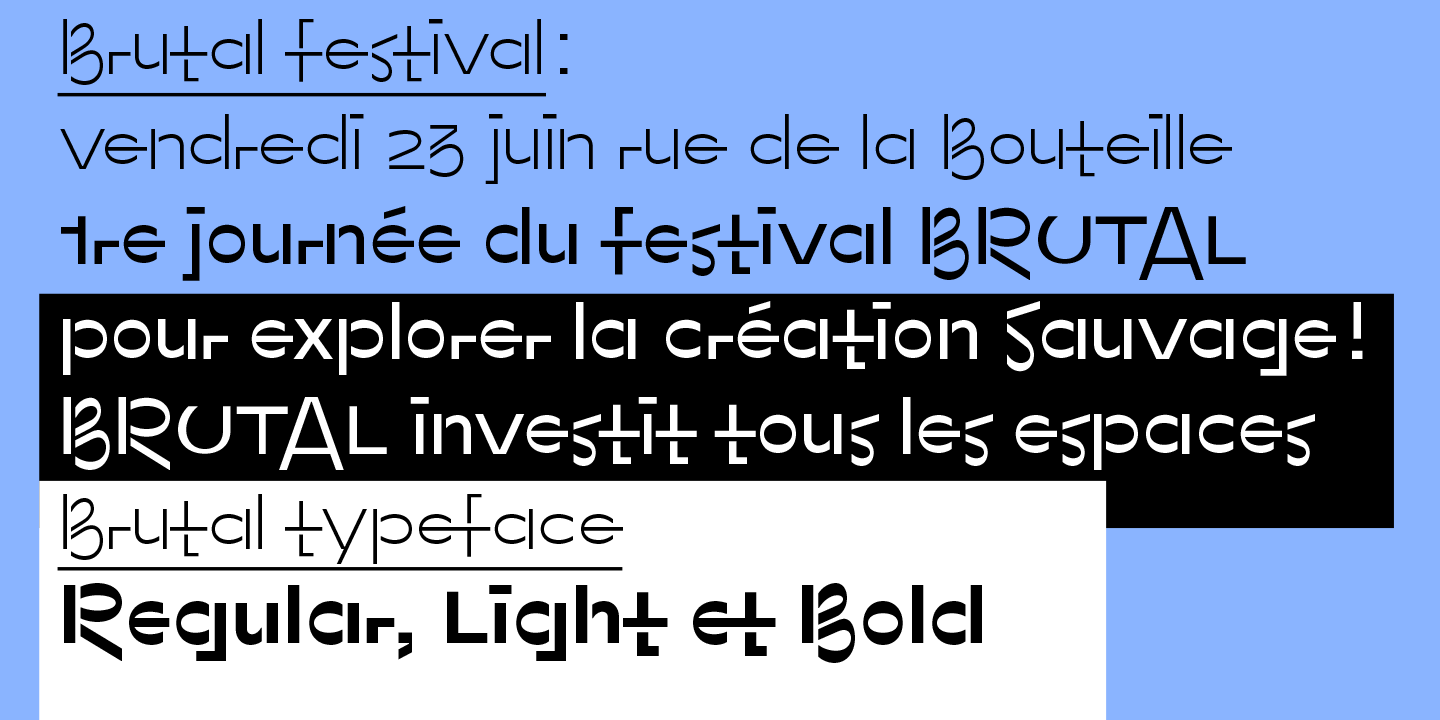
Brutal Free Download
Brutal Font Free Download
Brutal Font Free Download is a bold, edgy display typeface that makes a strong visual impact. Perfect for posters, branding, logos, event flyers, and any design requiring a strong, raw presence, this font combines thick, geometric letterforms with aggressive, sharp edges. Brutal Font is ideal for projects that demand attention and convey strength, power, and authority.
With Brutal Font Free Download, you’ll receive a complete set of uppercase letters, lowercase, numbers, and essential punctuation, making it suitable for both print and digital applications. Whether you're designing a heavy-duty logo, promotional materials, or graphics that need to grab attention, this font ensures clarity and high impact.
Make a statement with your designs using Brutal Font Free Download. Its bold, raw design makes it the perfect choice for projects that need a dramatic, powerful, and confident aesthetic.